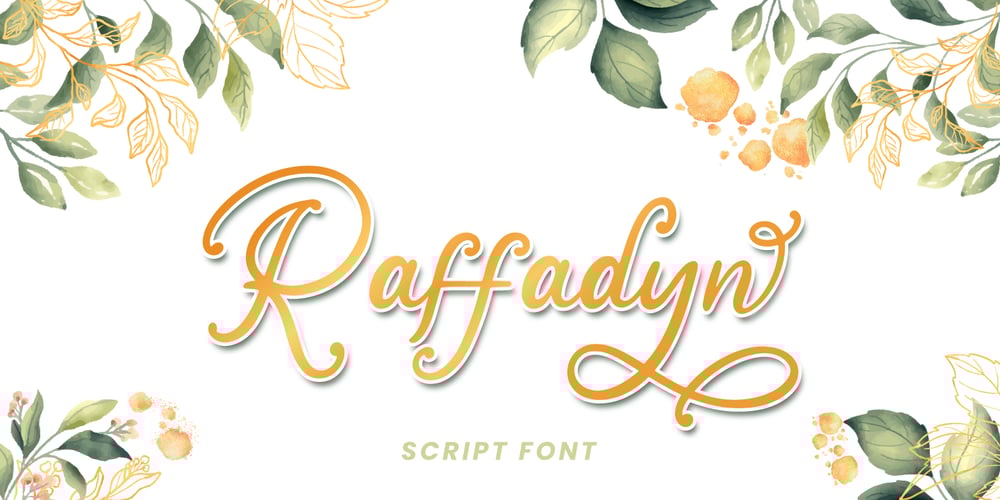
Raffadyn Font Family was designed by Fadli Ramadhan Iskandar and published by Attype Studio. Raffadyn contains 1 styles and family package options. Raffadyn is a wedding font perfect for your wedding dream. Combine Raffadyn with stylistic set to create amazing script font for wedding!Fall in love with its incredibly versatile style and use it to create spectacular designs!Raffadyn is perfect for branding, logo, invitation, quotes, apparel design, product packaging, merchandise, game titles, cute style design, Book/Cover Title and more.What’s Included :- Stylistic Set character- Multilingual Support —Hope you enjoy with our font!Attype Studio